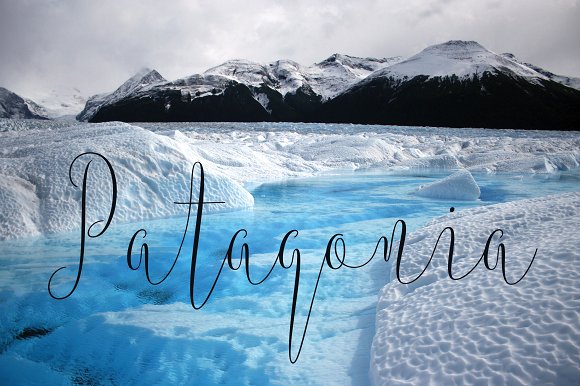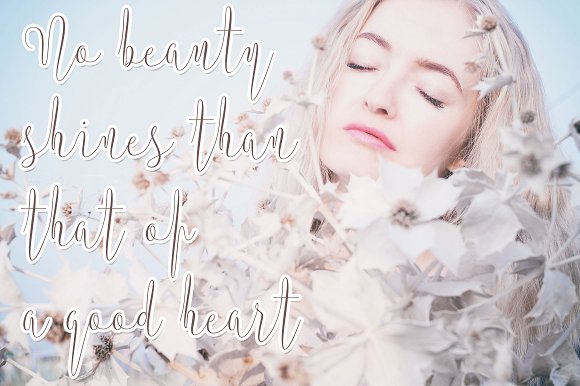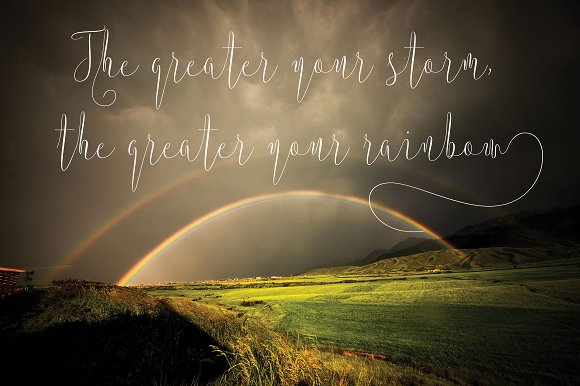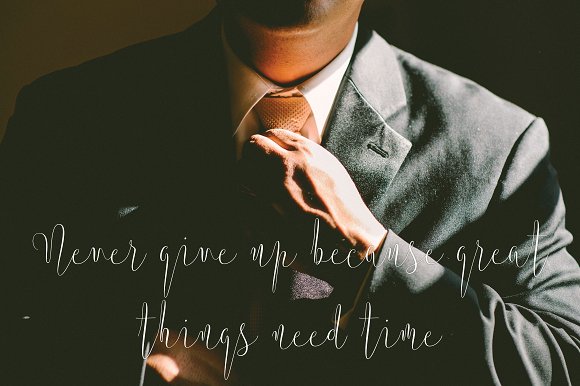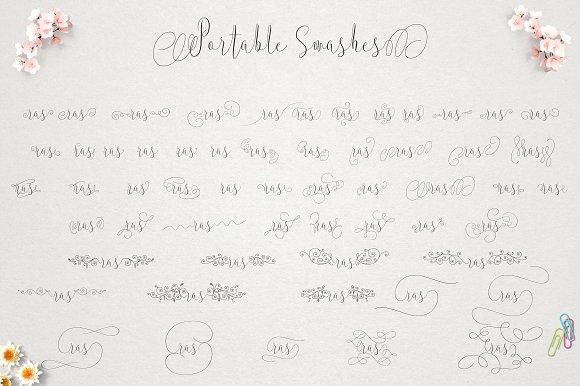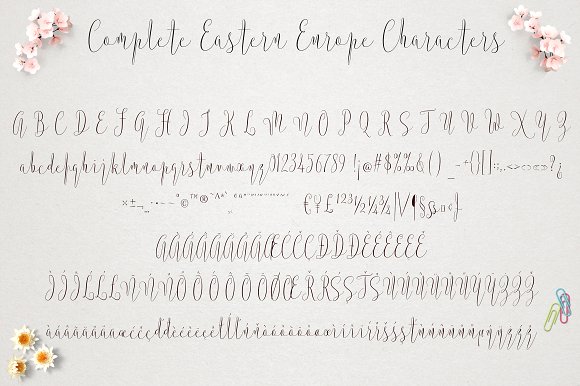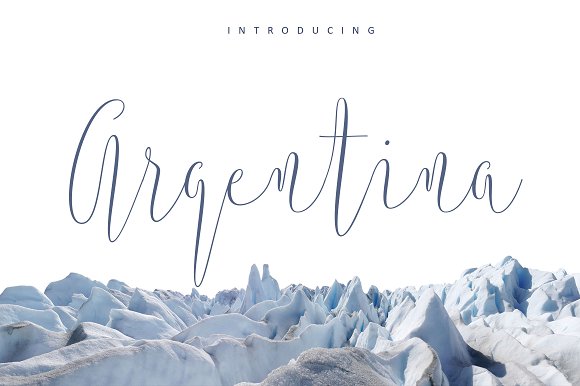
Discover the Elegance of Argentina Script Font
Argentina Script font, crafted by the talented designer Darwinoo, is a stunning addition to the world of typography. This beautiful script font is inspired by the classic calligraphy of Argentina, bringing a touch of elegance and sophistication to any design project. In this article, we’ll explore the features, benefits, and uses of Argentina Script font, making it a must-read for designers, crafters, and typography enthusiasts.
The Story Behind Argentina Script Font
Darwinoo, a skilled font designer, created Argentina Script font with the goal of capturing the essence of Argentine calligraphy. With a deep understanding of typography and a passion for crafting unique fonts, Darwinoo has brought this beautiful script to life. The font’s design is characterized by flowing lines, intricate connections, and a sense of fluidity, making it perfect for a wide range of creative projects.
Key Features of Argentina Script Font
- Unique and Elegant Design: Argentina Script font boasts a distinctive and sophisticated design, making it ideal for projects that require a touch of luxury and refinement.
- Flowing Lines and Connections: The font’s flowing lines and connections create a sense of continuity, making it perfect for body text, headings, and titles.
- Highly Legible: Despite its ornate design, Argentina Script font remains highly legible, ensuring that your text is easy to read and understand.
- Multilingual Support: The font supports multiple languages, making it a versatile choice for designers working on international projects.
Uses of Argentina Script Font
Argentina Script font is an incredibly versatile font that can be used in a variety of design projects, including:
- Wedding and Event Invitations: Add a touch of elegance to your wedding or event invitations with Argentina Script font.
- Branding and Packaging: Use the font to create luxurious brand identities, packaging, and labels that exude sophistication.
- Stationery and Lettering: Create beautiful stationery, letters, and cards with Argentina Script font’s flowing lines and connections.
- Signage and Displays: Use the font to create eye-catching signage, posters, and displays that showcase your message in style.
- Digital Media: Argentina Script font can also be used in digital media, such as video titles, social media graphics, and website headers.
Tips for Using Argentina Script Font
To get the most out of Argentina Script font, follow these tips:
- Use it Sparingly: Argentina Script font is a statement font, so use it sparingly to avoid overwhelming your design.
- Pair it with Simple Fonts: Pair Argentina Script font with simple, clean fonts to create visual contrast and balance.
- Experiment with Colors: Argentina Script font looks stunning in a variety of colors, so experiment with different hues to find the perfect match for your design.
Argentina Script font, created by Darwinoo, is a breathtakingly beautiful font that can elevate any design project. With its unique and elegant design, flowing lines, and high legibility, this font is perfect for designers, crafters, and typography enthusiasts. Whether you’re working on a wedding invitation, branding project, or digital media, Argentina Script font is sure to make a statement. So, download Argentina Script font today and experience the elegance of Argentine calligraphy in your designs.